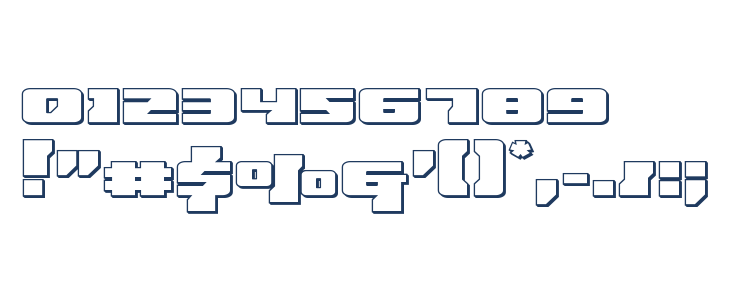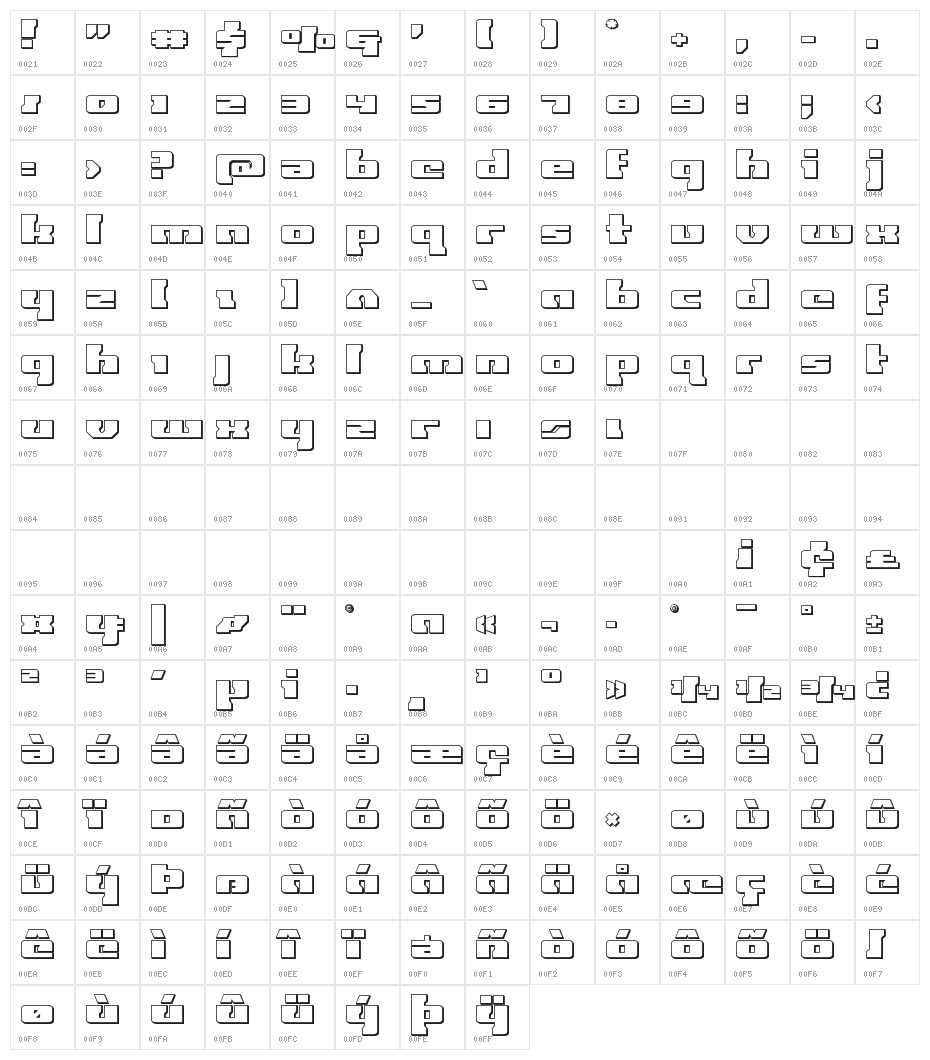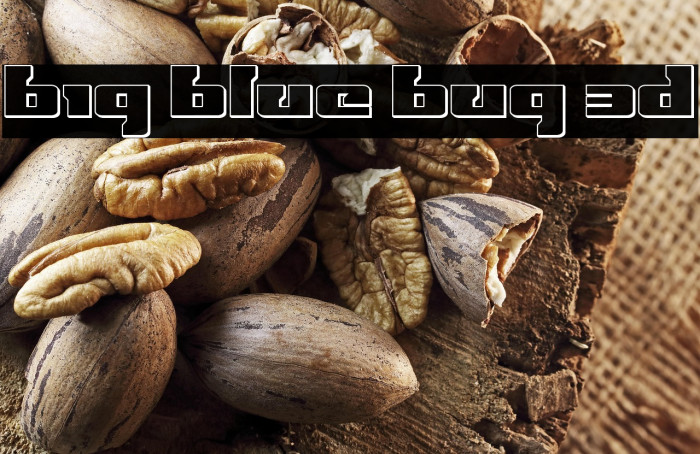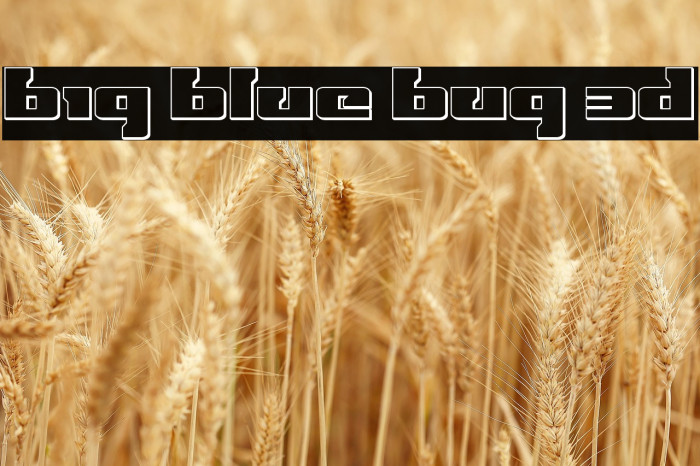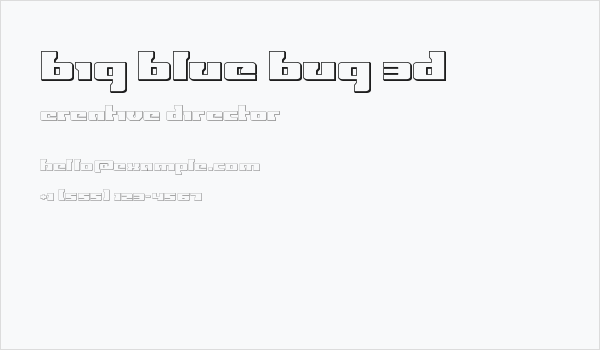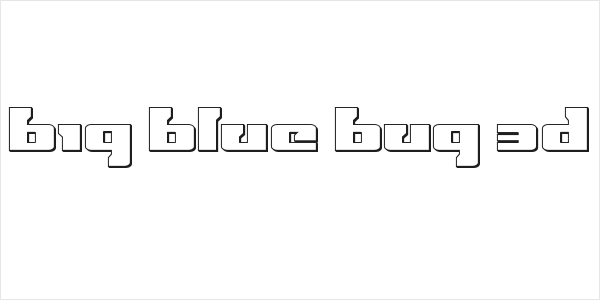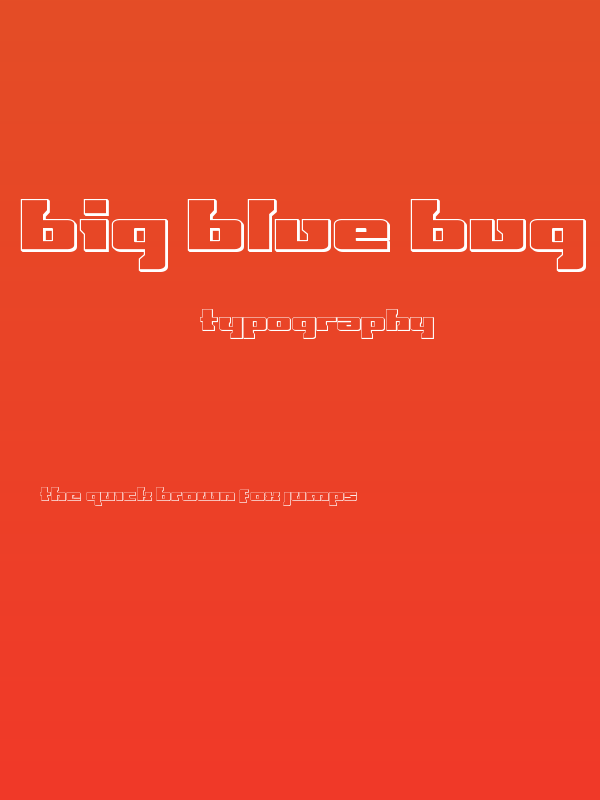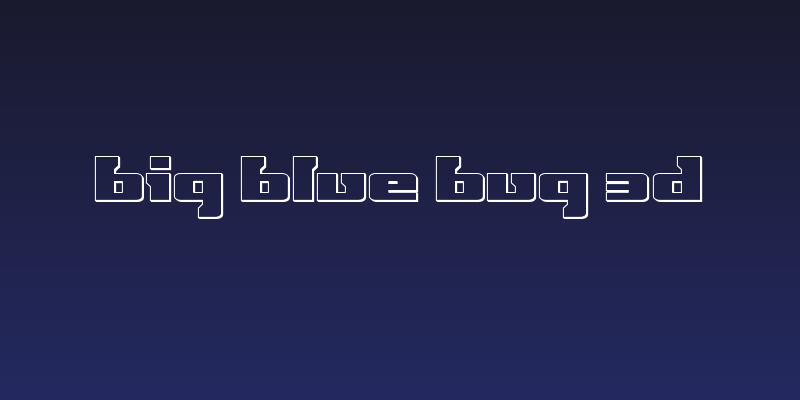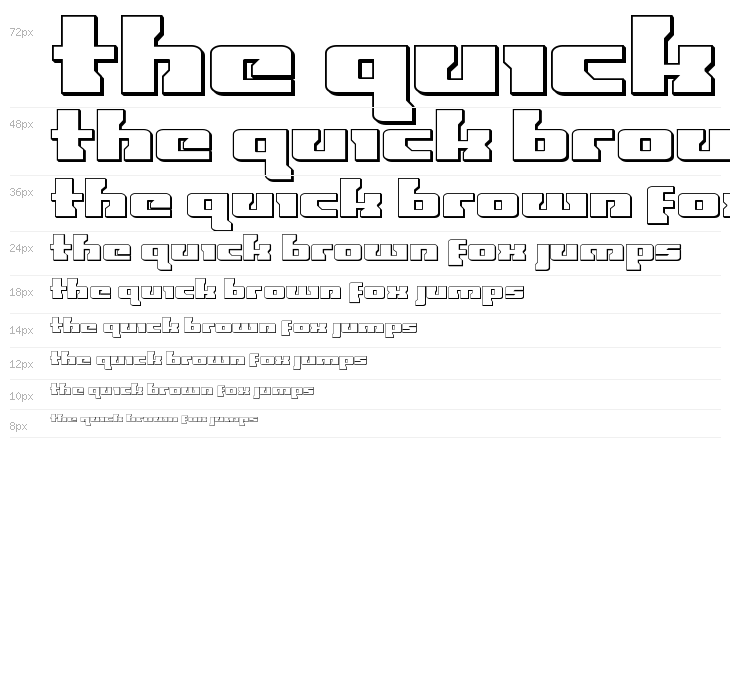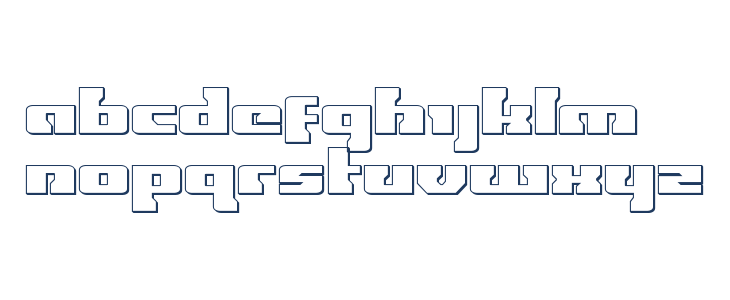
Big Blue Bug 3D Font
Big Blue Bug 3D Description
This font features a bold, three-dimensional style with a blocky and geometric appearance. The characters are outlined, giving them a distinct, futuristic look. The edges are sharp and angular, creating a sense of depth and structure. The font maintains a consistent thickness throughout, emphasizing its robust and solid nature. It is highly legible and stands out due to its unique design, making it suitable for eye-catching displays. The numbers and special characters are designed to match the boldness and style of the letters, ensuring a cohesive appearance across all glyphs.
| Proposed Projects | Ideal for video game titles, tech-themed posters, and futuristic branding. |